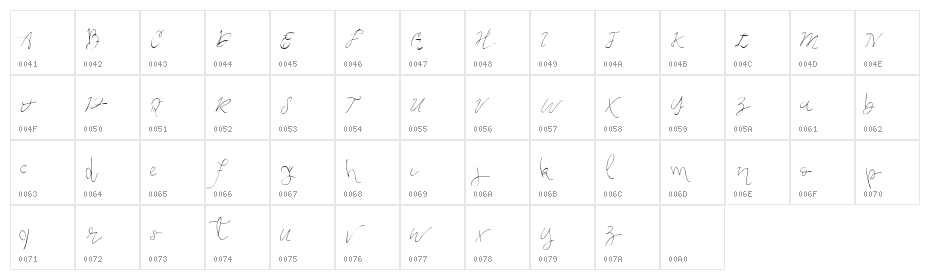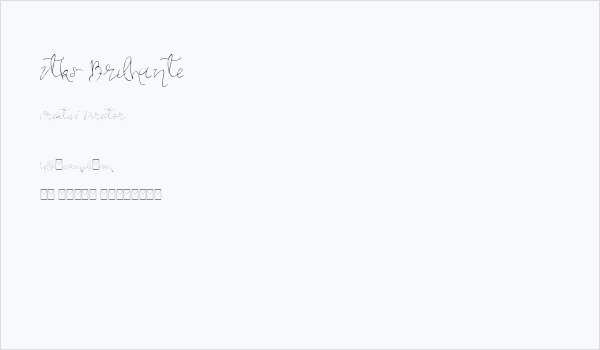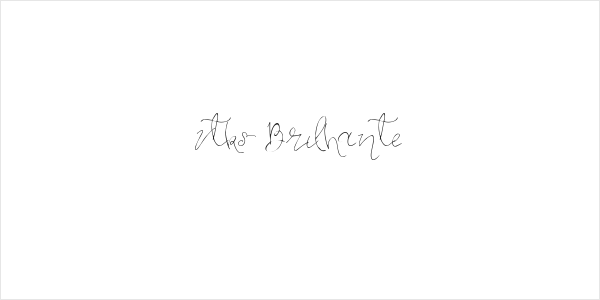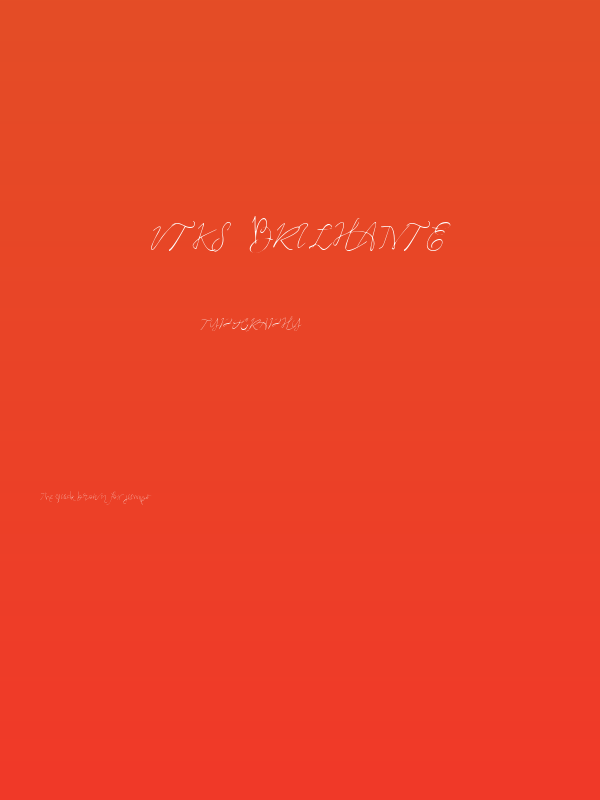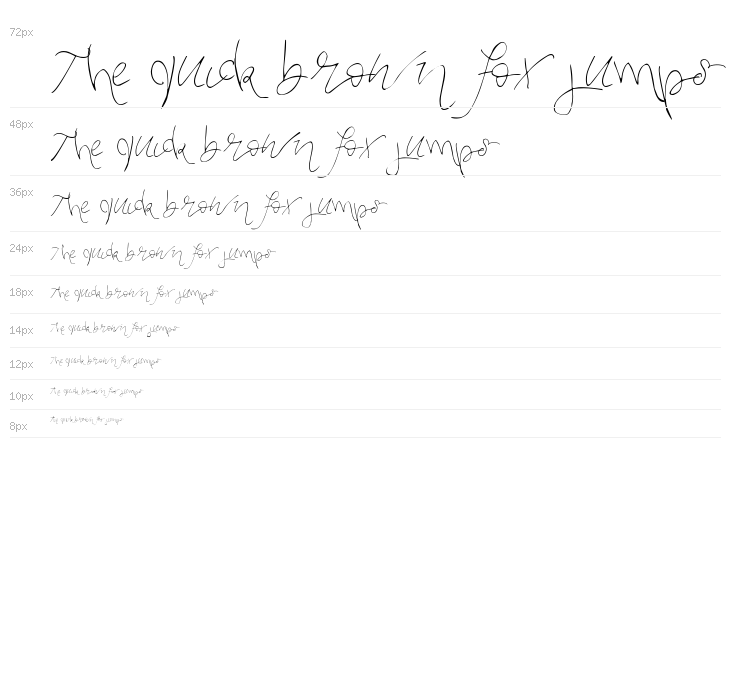
Vtks Brilhante Font
Vtks Brilhante Description
This font features an elegant and flowing script style, characterized by its intricate and delicate strokes. The letters are connected in a cursive manner, giving it a handwritten appearance. The uppercase letters are ornate, with loops and swirls that add a touch of sophistication. The lowercase letters maintain a consistent style, complementing the uppercase with their graceful curves. The numbers and special characters are designed to match the overall aesthetic, ensuring a cohesive look across all text. This font is perfect for projects that require a touch of elegance and personal flair.
| Proposed Projects | Ideal for wedding invitations, elegant branding, personal stationery, and decorative quotes. |